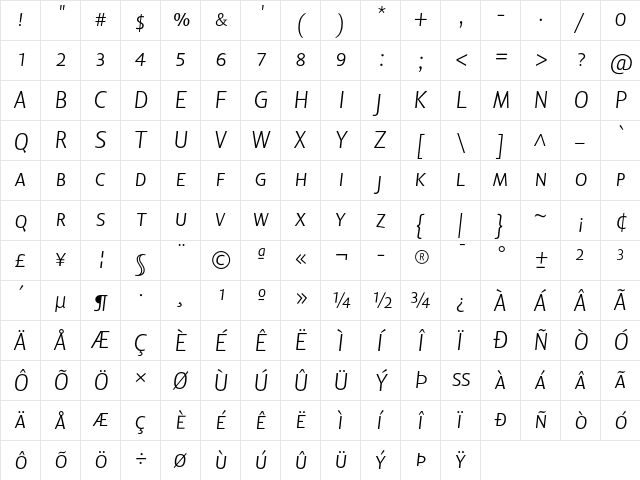
Lisboa Sans SC Light Italic Font Preview
Design Context for Lisboa Sans SC Light Typeface
Lisboa Sans SC Light offers clean, dependable letterforms without strong stylistic allegiance, making it a practical choice for designers who need flexibility. Its italic angle brings a sense of urgency and motion to the letterforms. The delicate stroke weight brings airiness and refinement to layouts.
Pro Tip: Use Lisboa Sans SC Light for emphasis, pull quotes, and subheadings where its slanted energy can add rhythm to the layout.